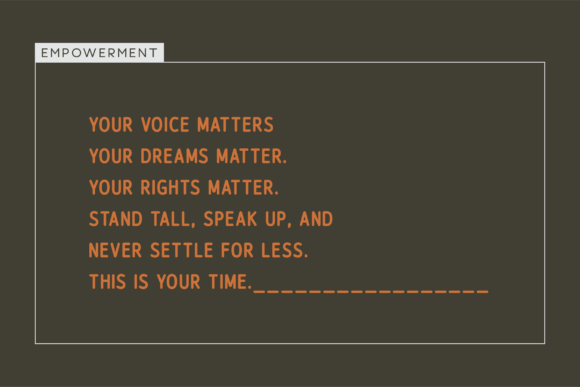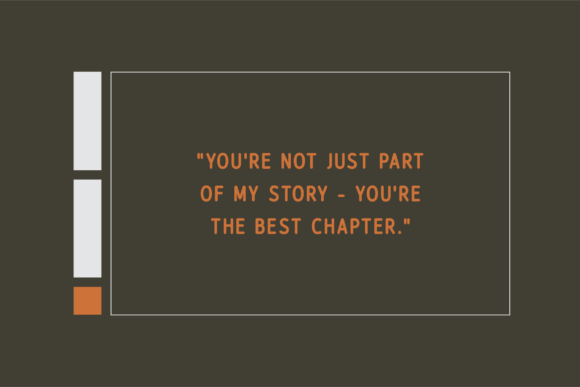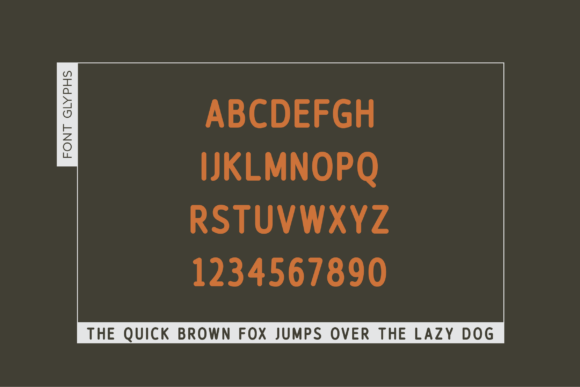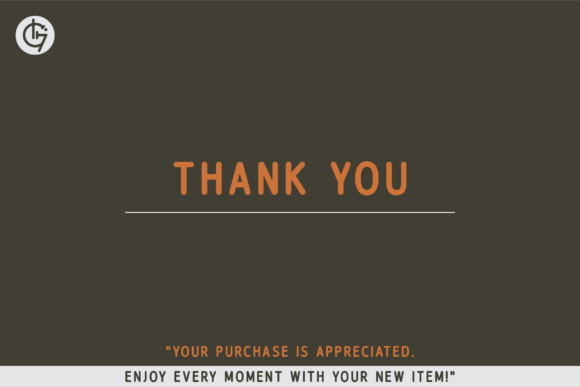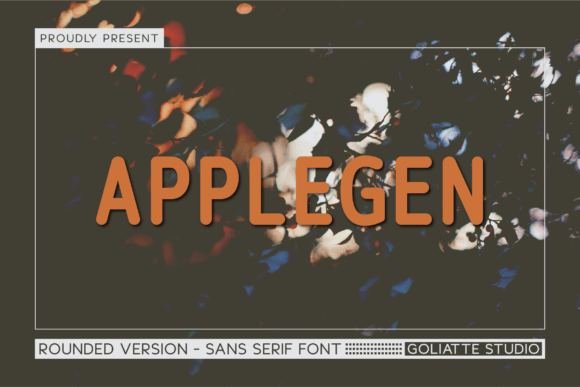
Discover the Unique Charm of Applegen Font: Elevate Your Designs with Creative Quirks and Clean Lines
In the vast world of typography, few fonts manage to strike a balance between creative individuality and versatility. Applegen, an all-caps font, is one such rare gem that embodies the perfect blend of quirky charm and clean lines. Whether you’re a designer looking for a sophisticated edge or a crafter aiming to transform ordinary projects into masterpieces, Applegen is a font that promises to unlock a world of creative possibilities.
What Makes Applegen Stand Out?
Applegen boasts a comprehensive suite of capital letters from A to Z, numbers from 0 to 9, a wide range of accented characters, and an extensive selection of punctuation marks. This ensures that the font doesn’t just look great but is also highly functional across various design needs. The inclusion of a full character set means that designers and crafters can rely on Applegen for a broad spectrum of projects without worrying about limitations in expression.
One of the standout features of Applegen is its incredible versatility. Its iconic simplicity and smooth execution make it a perfect fit for a myriad of uses. Here are just a few ways you can integrate Applegen into your projects:
- Social Media Graphics: Make your posts stand out with a font that shines in digital formats. Applegen’s clean lines and unique charm are sure to grab attention and make your content more engaging.
- Clothing Design: Add a touch of sophistication and personality to your apparel designs. Applegen’s distinctive style can help your clothing line stand out in a crowded market.
- Decals and Stickers: Transform ordinary decals and stickers into eye-catching accessories. Applegen’s clarity and charm ensure that your designs pop, whether they’re on laptops, water bottles, or any other surface.
- Greeting Cards and Invitations: Elevate your greeting cards and party invitations with a sophisticated edge. Applegen’s unique style adds a touch of elegance and whimsy, making any occasion special.
- Craft Projects: For crafters, Applegen can turn simple projects into masterpieces. Whether you’re making DIY signs, custom jewelry, or handcrafted home decor, this font can add a professional and stylish touch to your creations.
Why Designers and Crafters Love Applegen
Applegen’s appeal to both designers and crafters stems from its unique blend of characteristics:
- Easy to Read: Despite its creative quirks, Applegen remains highly legible, making it suitable for both digital and print projects.
- Highly Customizable: With a wide range of accented characters and punctuation, Applegen offers plenty of room for creative expression and customization.
Applegen is more than just a font; it’s a tool for creative expression. Its unique blend of quirky charm and clean lines, combined with its versatility and comprehensive character set, makes it an invaluable asset for designers and crafters alike. Whether you’re looking to breathe life into your digital content, add a sophisticated edge to your designs, or transform ordinary craft projects into something extraordinary, Applegen is the perfect choice. So why wait? Unlock the full potential of your creativity with Applegen and see where your imagination takes you!